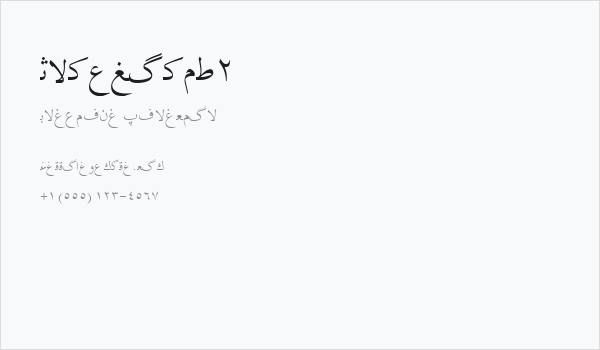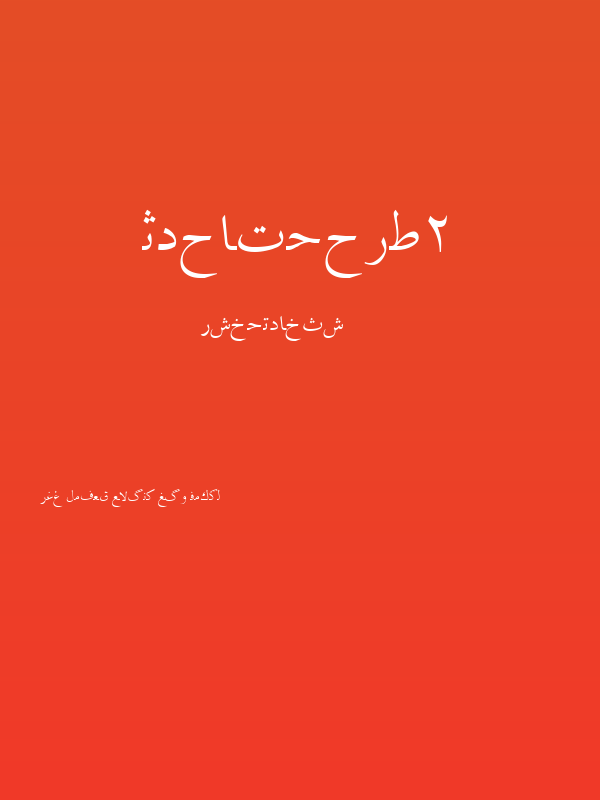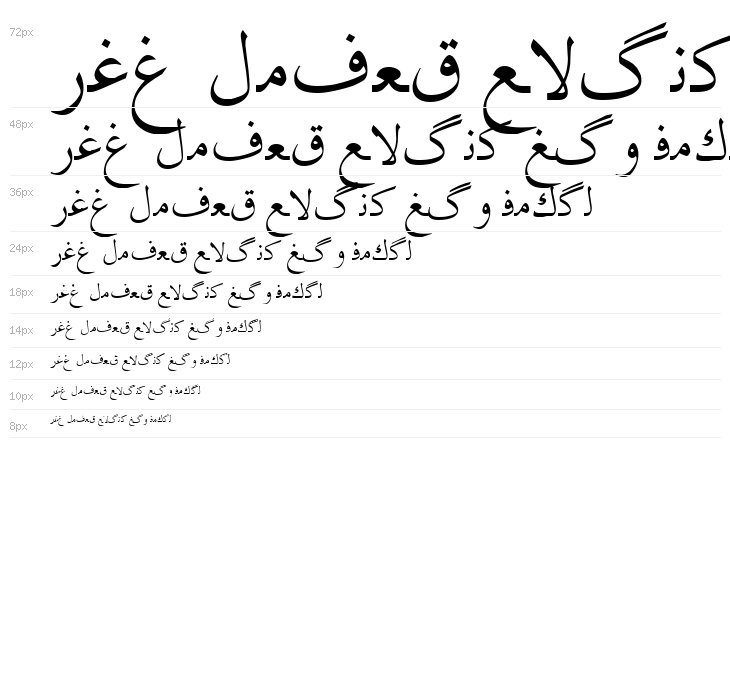
Irnafont_2 Font
Irnafont_2 Description
This font features a distinctive and elegant style, characterized by smooth curves and a flowing script-like appearance. The characters are well-balanced, with a harmonious blend of thick and thin strokes that add a touch of sophistication. The font's design is reminiscent of traditional calligraphy, yet it maintains a modern appeal. The letters are intricately crafted, with each character displaying a unique flair, making it suitable for artistic and decorative purposes. The numerals and special characters are equally well-designed, ensuring consistency throughout the font. Its graceful appearance makes it ideal for projects that require a touch of elegance and refinement.
| Use Case | Decorative, Artistic projects |
| Proposed Projects | Ideal for wedding invitations, greeting cards, branding, and decorative projects. |